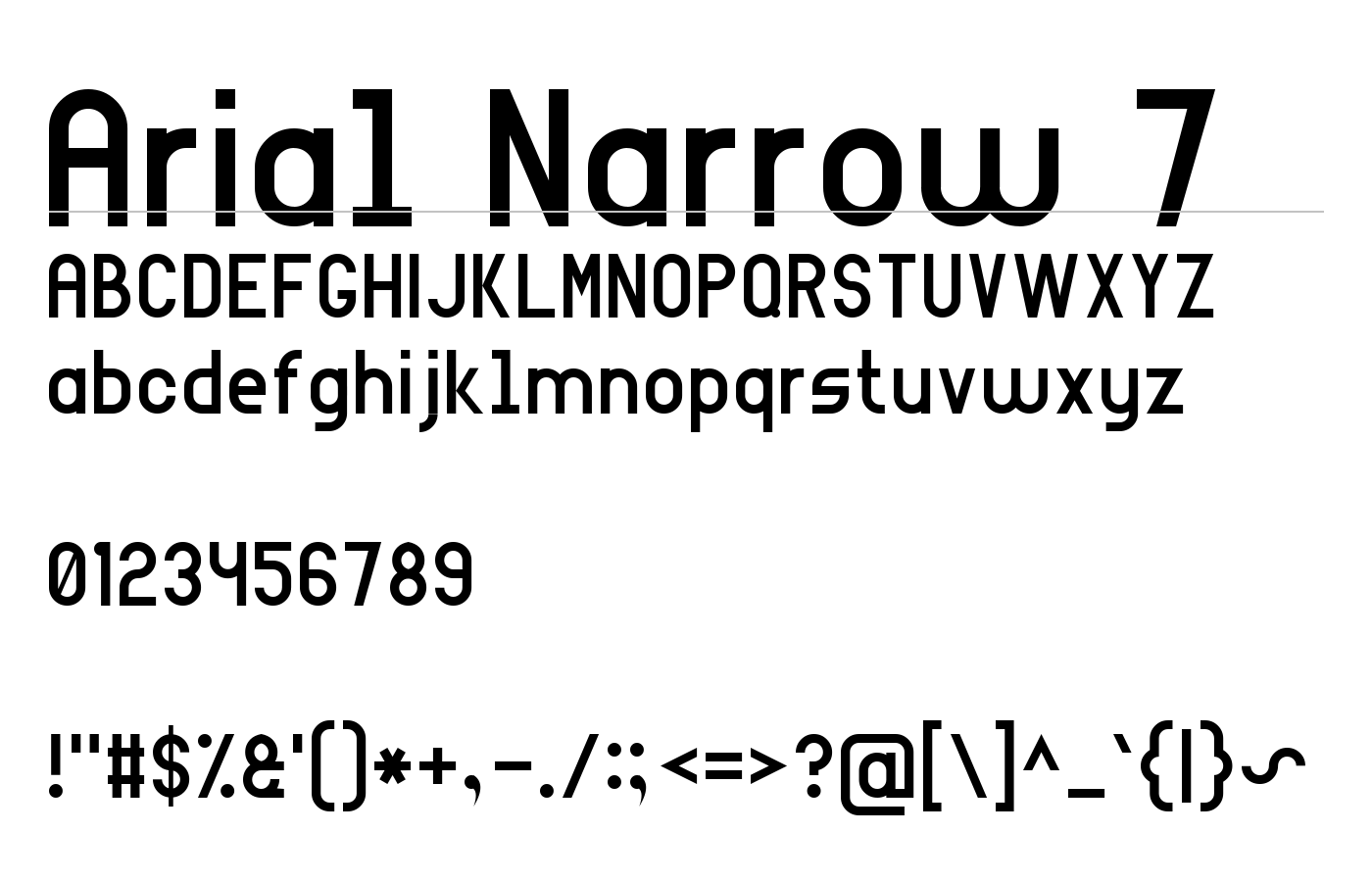
Arial Narrow 7 is a sleek, condensed sans-serif font characterized by its tall, narrow letterforms and consistent stroke weight, offering a clean and modern look. Its geometric shapes and minimal contrast make it highly legible in tight spaces, perfect for headlines, signage, and compact layouts needing clarity without sacrificing style. This font works well for professional settings where space efficiency and straightforward communication are key.
Arial Narrow 7 Font
About Arial Narrow 7 Font
| Designer | Sizenko Alexander |